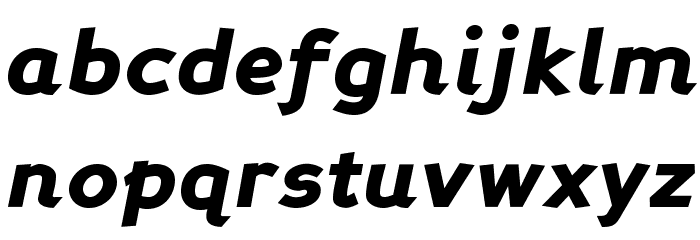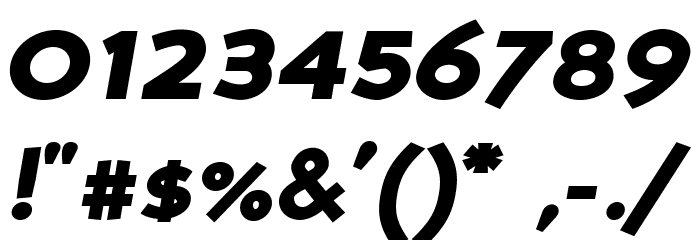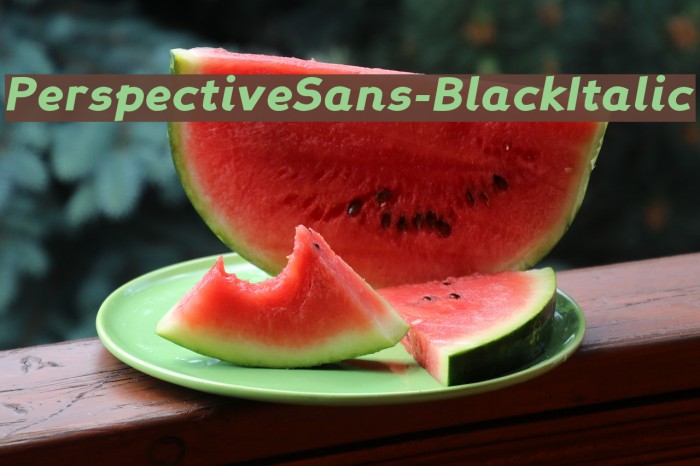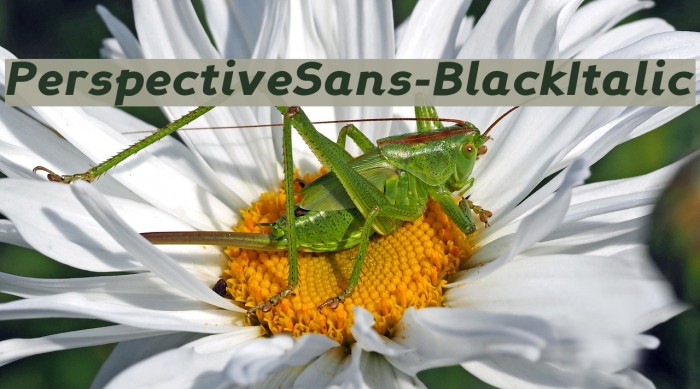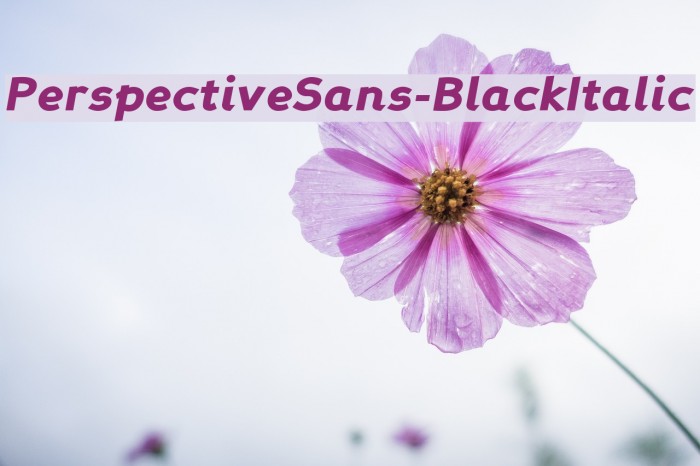
PerspectiveSans-BlackItalic Font
This font exhibits a bold and dynamic style with a strong italic slant, giving it a sense of movement and energy. The characters are well-defined with a consistent stroke width, contributing to a clean and modern appearance. The uppercase and lowercase letters maintain a harmonious balance, while the numerals and special characters are crafted to match the overall aesthetic. The font's design is versatile, making it suitable for a variety of applications where a bold statement is desired.
A bold, italic sans-serif font with a dynamic and modern style.
- Proposed Projects: Ideal for branding, advertising, headlines, and any project requiring a strong visual impact.
- Use Case: Headlines, Logos, Branding